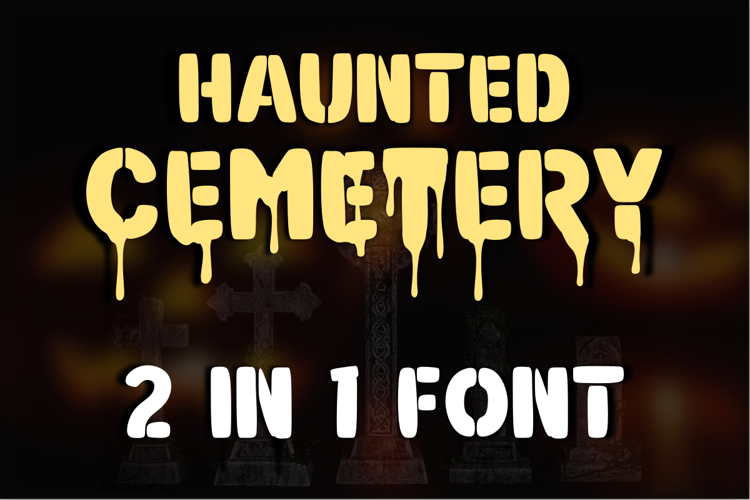
Haunted Cemetery Font
Haunted Cemetery is a unique font with 2 different styles between the uppercase letters and lowercase letters. Use the lowercase to get the melted types of letters and use caps lock to get the normal types. The lower case letters has 5 different versions, and they automatically cycles as you type!